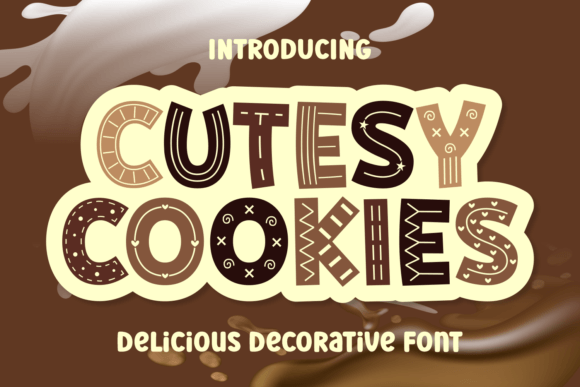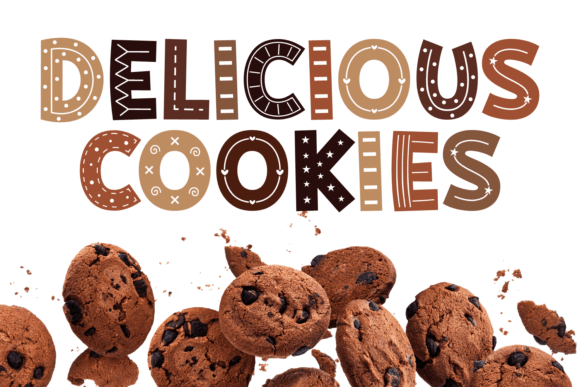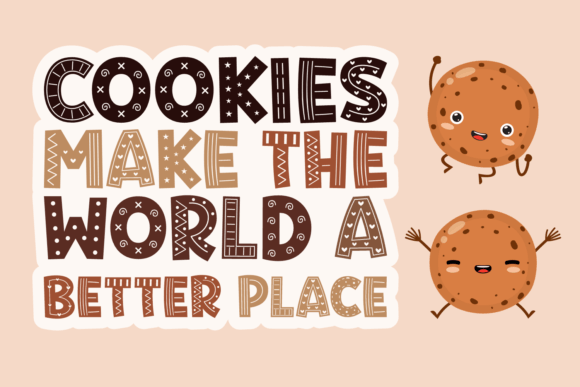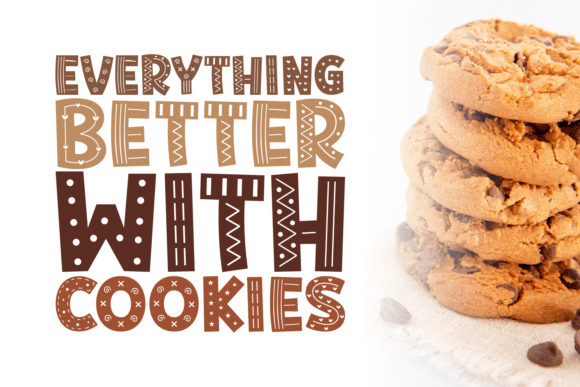
Cutesy Cookies Font
About the Cutesy Cookies Font
Discover the charm of Cutesy Cookies Font. This font is a perfect blend of modern aesthetics and classic appeal. Cutesy Cookies is a joyful and charming decorative font. These lovely characters feature cute stars, hearts, swirls, and more. Use them to embellish your craft products, logos, advertising materials, and many others!
Cutesy Cookies is ideally suited for headlines, short text blocks on packaging, and playful branding projects where a whimsical feel is desired. It works exceptionally well for children’s products, baked goods, and projects related to crafting or hobbies. Avoid using it for body text or lengthy paragraphs; its decorative nature makes it difficult to read in extended use. Legibility suffers at smaller sizes.
This font’s personality is undeniably cheerful and friendly. Pair it with a clean sans-serif like Open Sans for contrast and readability in supporting text, or a script font such as Great Vibes for a cohesive, hand-crafted feel. A geometric sans-serif, like Montserrat, can also create a sophisticated juxtaposition against the playful nature of Cutesy Cookies.
For optimal impact, use Cutesy Cookies sparingly, highlighting key words or phrases. It’s best employed as an accent font, enhancing a design rather than dominating it.
Cutesy Cookies Font Usage Examples
Cutesy Cookies Font Example